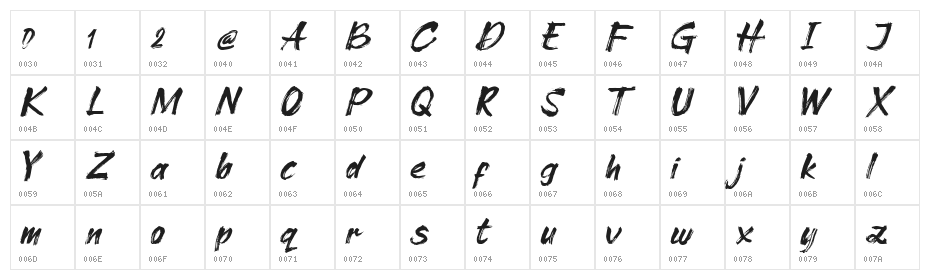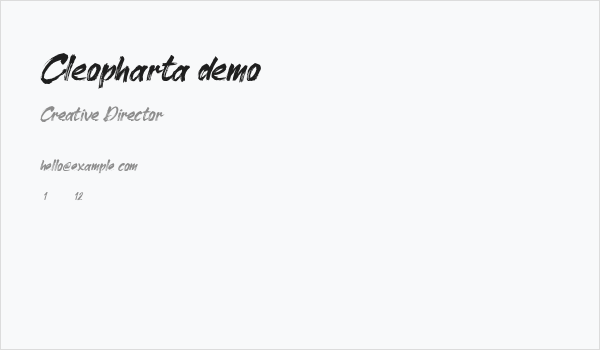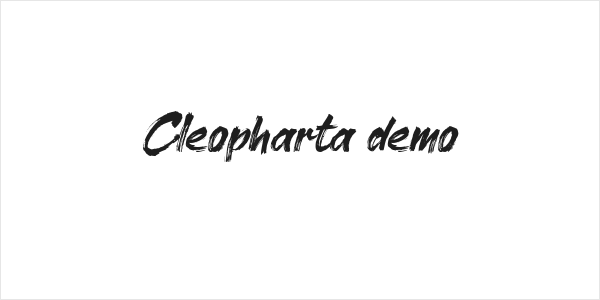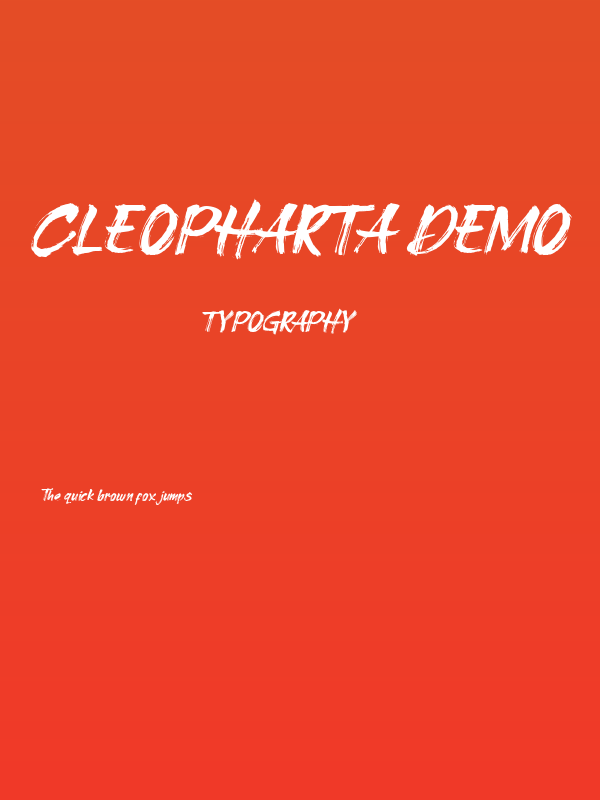
Cleopharta demo Font
Cleopharta demo Description
This font features a bold and expressive brush style, characterized by its dynamic and energetic strokes. The letters have a hand-painted appearance, with varying thicknesses that create a sense of movement and fluidity. The uppercase and lowercase letters maintain a consistent style, while the numbers and special characters complement the overall aesthetic. The font's rough edges and irregular shapes give it a raw, artistic feel, making it ideal for projects that require a touch of creativity and individuality.
| Proposed Projects | Ideal for artistic projects, posters, branding, and any design requiring a bold, creative touch. |